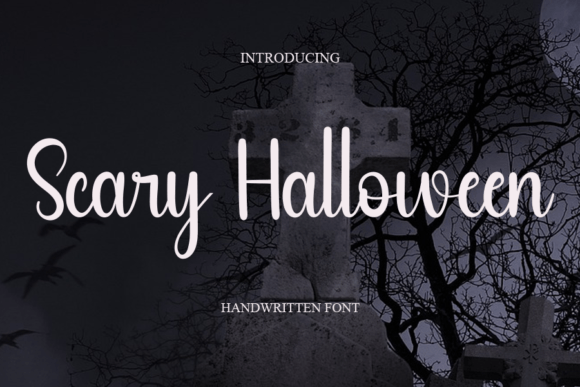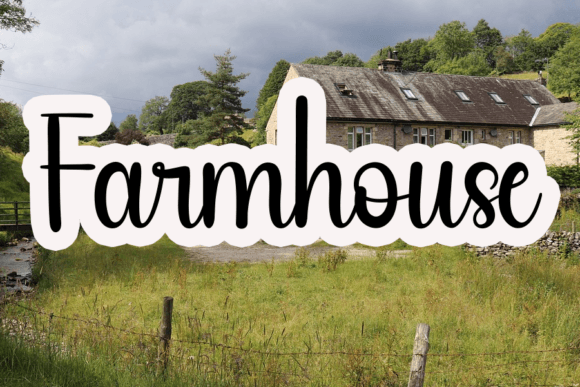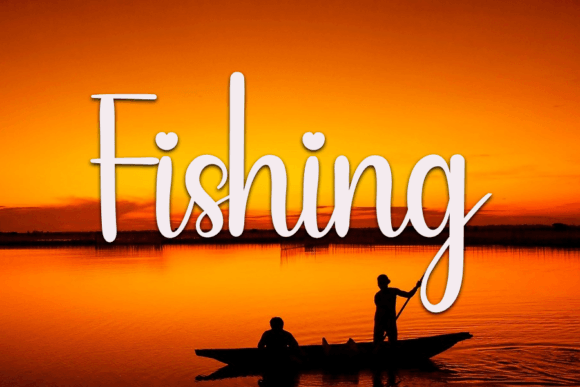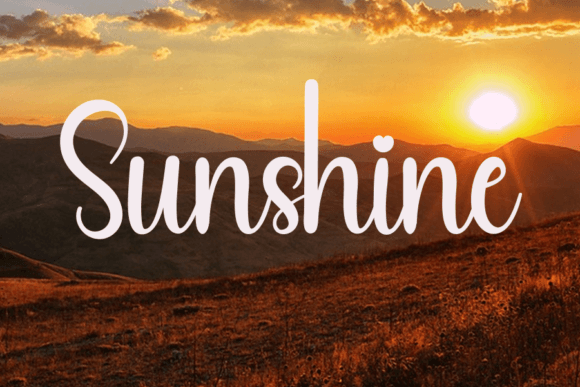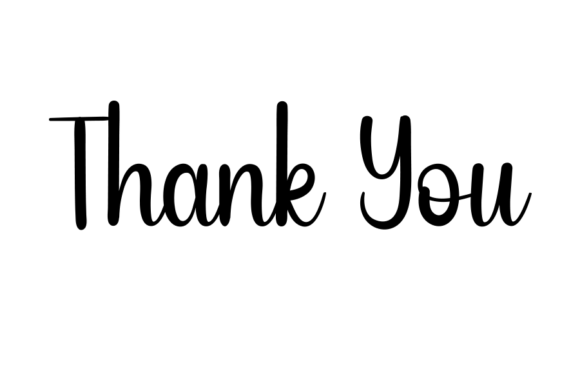
Scary Halloween Font
Scary Halloween is a lovely and timeless handwritten font. It is the best choice for creating eye-catching logos, branding, and quotes. Every letter has a unique and beautiful touch, which will make your design come alive!